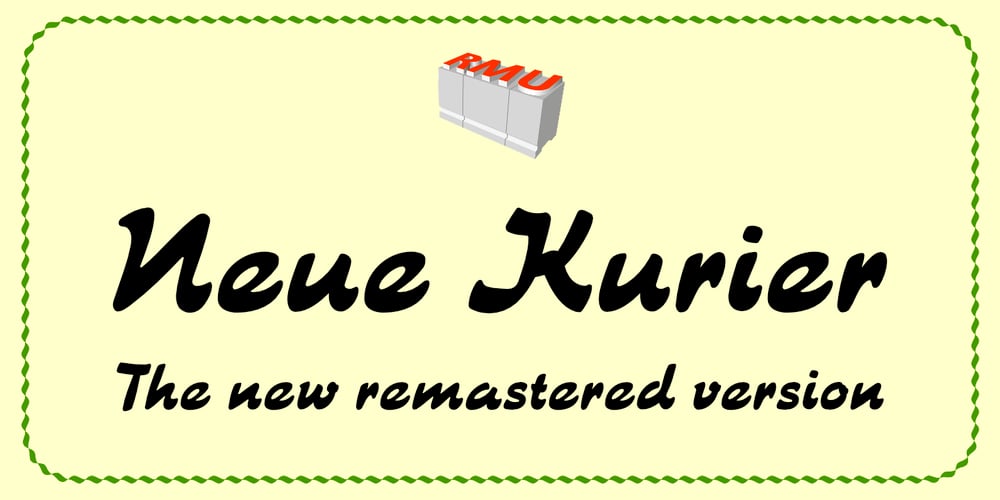
Neue Kurier Font Family was designed by Ralph M. Unger and published by RMU. Neue Kurier contains 1 styles and family package options. Typoart’s popular script font in a new, completely remastered version.